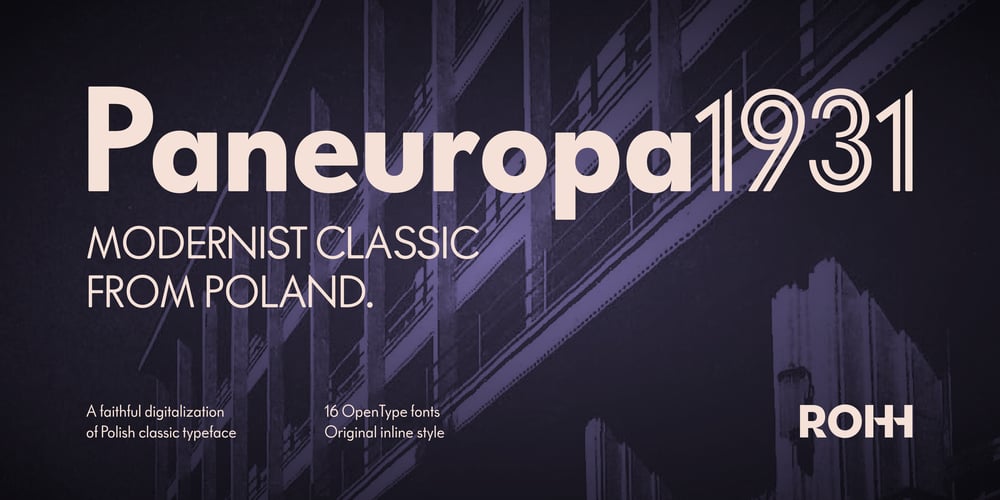
Paneuropa 1931
Paneuropa 1931 font
Paneuropa 1931 Font Family was designed by Roch Modrzejewski and published by ROHH. Paneuropa 1931 contains 18 styles and family package options. So you want a classic? Here it is. Paneuropa 1931, the unsung hero of Polish typography that snuck its way into every printed corner back in the day. This version features no flashy gimmicks nor over-polished „modern twists”—just pure, unapologetic vintage modernism. Letter shapes and proportions faithfully retain their original quirks, with carefully adjusted spacing and kerning for an authentic retro feel and legibility. The family features an elegant inline (double) style that elevates headlines in effortless, cool, old-school fashion.Paneuropa 1931 is here for those who get it. Vintage and iconic, it captures nostalgia in every letter, conjuring memories of the scent of ink on paper.Key Features• 18 classic styles• cool inline display style• 2 optical sizes (display & text)• soft, vintage letterforms• spaced for authentic retro feel• over 500 glyphs• Extended Latin language support